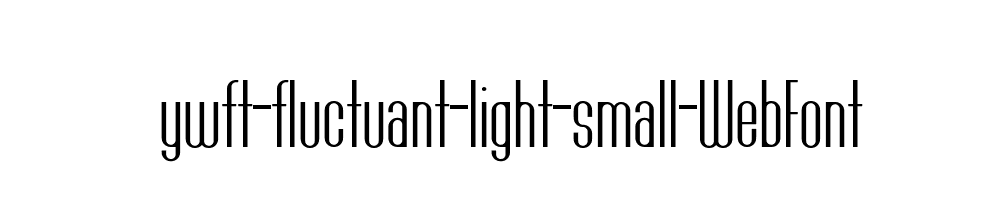
About ywft-fluctuant-light-small-WebFont
The font ywft-fluctuant-light-small-WebFont is a delicate and airy typeface, designed with a focus on elegance and sophistication. The font features open counters and graceful ascenders that give it a sense of lightness and delicacy. The subtle curves and gentle arcs in the letterforms contribute to its overall expressive nature. The font’s apertures are clean and well-defined, adding to its modern and refined aesthetic. The serif details are minimal and sleek, creating a sense of understated elegance. Overall, ywft-fluctuant-light-small-WebFont falls into the category of an Elegant and Progressive font, with a warm and friendly undertone that makes it suitable for a variety of design projects.